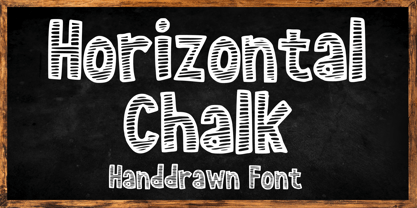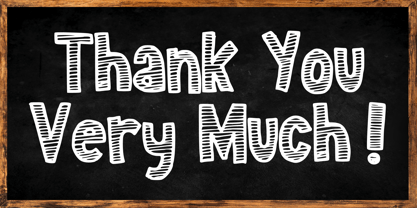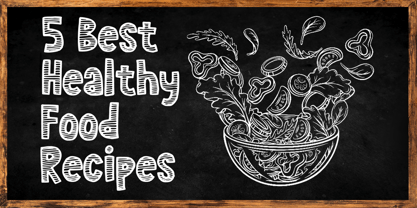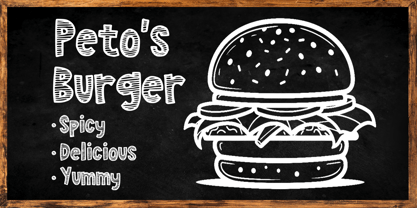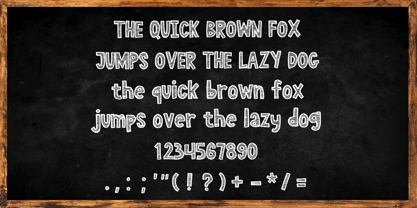
Horizontal Chalk
by Mvmet
The Horizontal Chalk Font Family was designed by Gabriel Valentinus and published by Mvmet. Horizontal Chalk contains 1 styles. More about this family
Experience the joy of creativity with Horizontal Chalk, a splendid and whimsical font shaped by the essence of genuine chalk handwriting and illustrations. This ingenious font is a fitting choice for school projects or cafe themed designs, poised to raise the bar of your design work to unprecedented heights. Horizontal Chalk opens up the world of possibilities including catchy stickers, cool cafe menu board, unique apparel designs, mesmerizing logos, and engaging covers for magazines or books. It is also an ideal pick for comic books or cartoon depictions. Trust Horizontal Chalk to bring an element of trendy coolness to your designs.
Designers: Gabriel Valentinus
Foundry: Mvmet